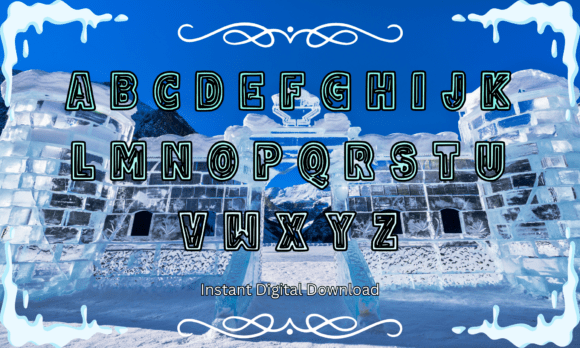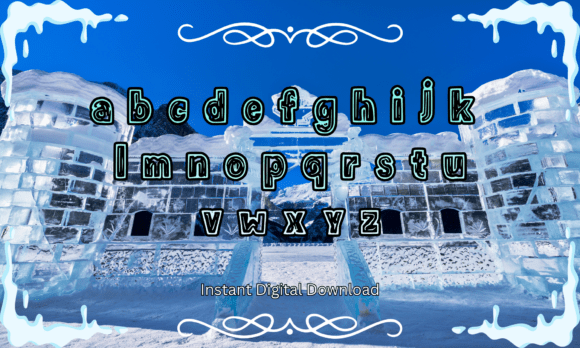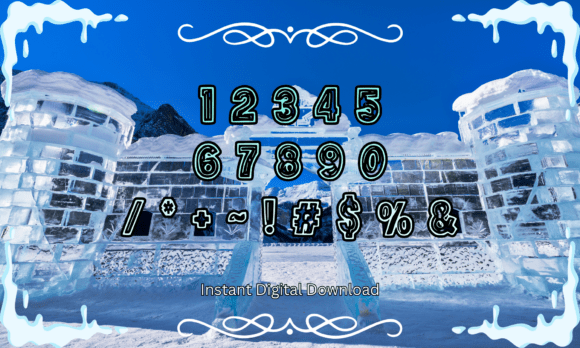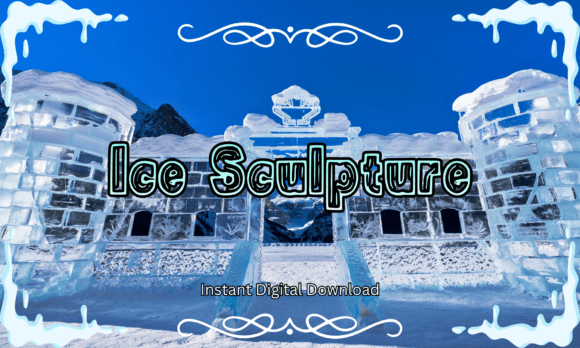
Introduction to Ice Sculpture Font
Bring the magic of winter to your creative projects with Ice Sculpture Font β˜ƒοΈπŸ§Š This frosty display font is inspired by frozen castles, carved ice sculptures, and icy winter wonderlands.
Featuring bold frozen lettering with chilled line details, this font creates the perfect cool aesthetic for winter-themed branding, holiday crafts, invitations, gaming graphics, and seasonal decor Whether you’re designing for Christmas, snow-themed projects, or fantasy winter artwork, Ice Sculpture Font adds a crisp frozen touch that instantly stands out.
Key Features of Ice Sculpture Font
Why Choose Ice Sculpture Font?
Ice Sculpture Font offers exceptional quality and versatility, making it a valuable addition to your design toolkit. Whether you’re creating for personal projects or commercial use, Ice Sculpture Font delivers professional results.